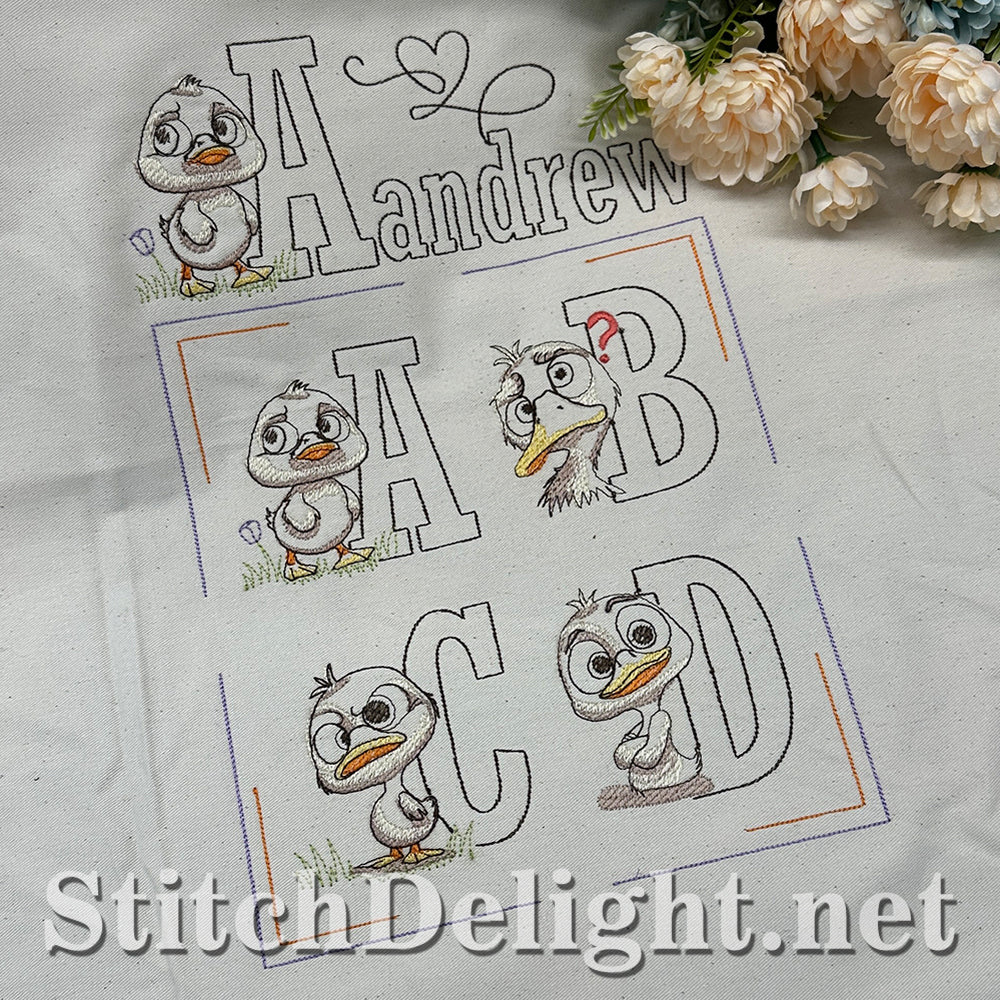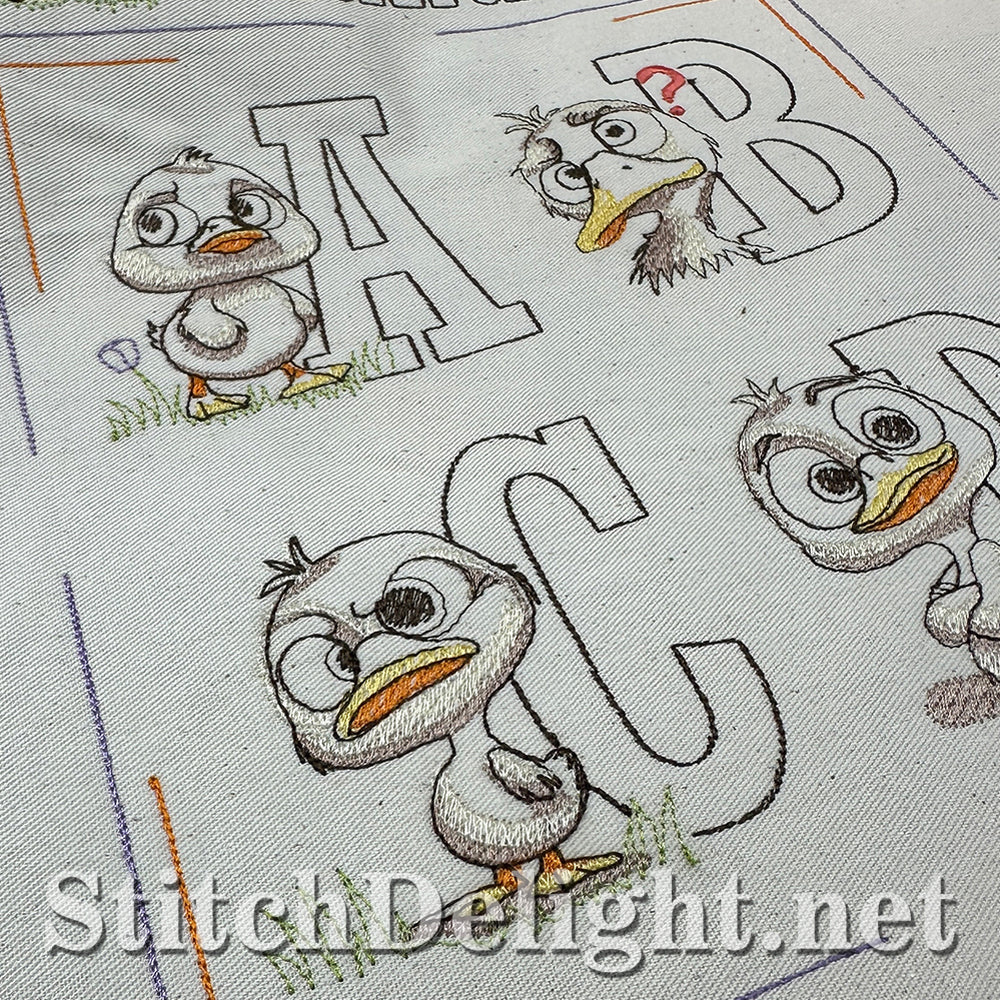
Attitude Duckling font is our collectors font for March 2025 it features 7 unique ducklings with the entire font having an average height of 3.4" making it ideal for your 4x4" hoop.